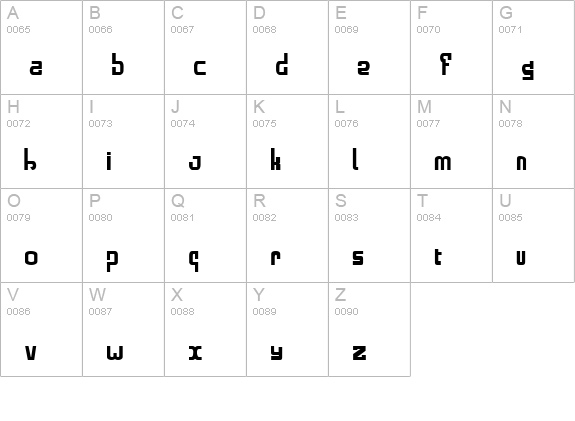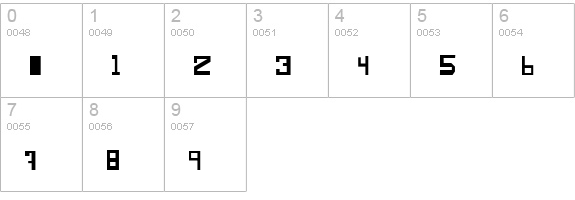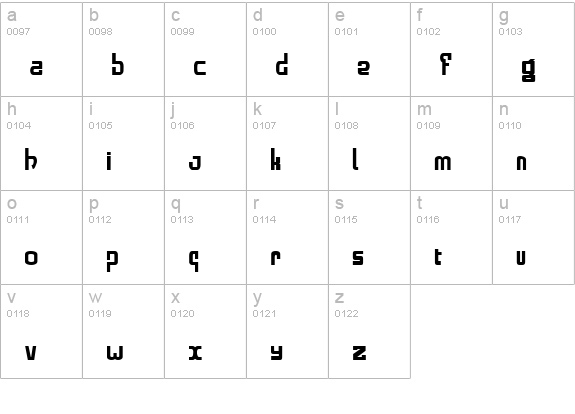
alphabold Font Details
Introducing Alphabold font, a bold and impactful typeface that commands attention with its strong and confident presence. With thick, clean lines and a modern aesthetic, Alphabold is perfect for making a statement in your designs. Whether you're creating posters, logos, or branding materials, this font exudes power and sophistication. Alphabold is not only visually striking, but it also offers versatility in its usage. You can use it for headlines, titles, or even as a standalone graphic element to add a bold touch to your projects. Its boldness is sure to captivate your audience and leave a lasting impression. The best part? Alphabold font is free to download at FontsMarket.com, making it accessible to designers and creatives alike. Don't miss out on this opportunity to elevate your designs with the commanding presence of Alphabold font. Download it today and start making a bold statement with your typography.